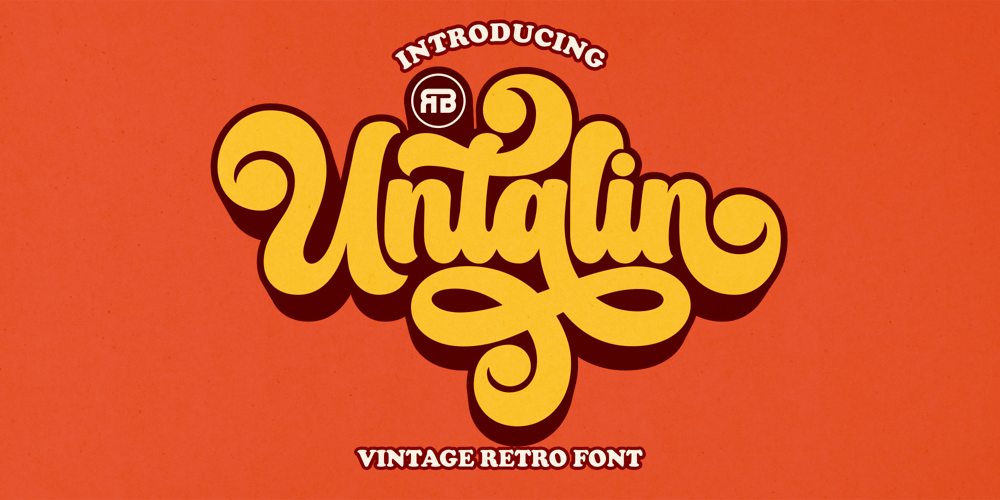
Untalin
Untalin font
Untalin Font Family was designed by MOH. MA’IN and published by RGB Studio. Untalin contains 1 styles and family package options. Untalin is a Vintage retro font. Inspired from retro typography and lettering in the 70’s and 80’s combine with bold typography style. This font perfect for vintage and retro design, badge, logos,t-shirt, poster, branding, packaging, signage, book coverand so much more! Untalin with almost 490 glyphs inside the font, you can also create many of other typography designs. Stylistic Alternates, Swashes, Contectual Alternate and Ligatures is a list of features from OpenType which you can use to pairing the letters each other powerfully.Files Include : Basic Latin A-Z and a-z Numbers Symbols PUA Encode Multilanguage Support Thanks and have a wonderful day, If you have any questions, please get in touch with us Don’t forget to check out our other products.